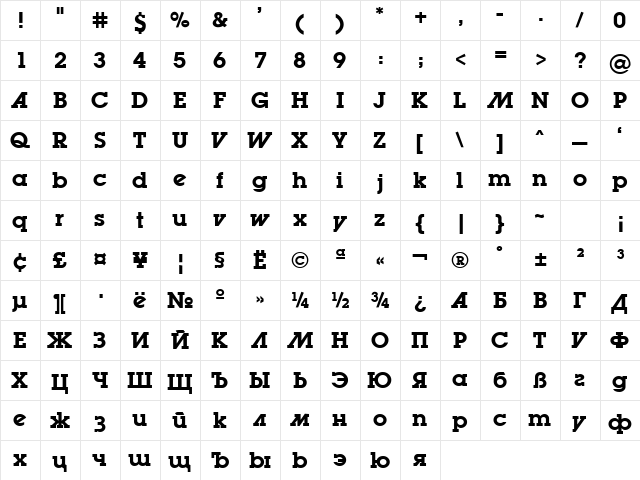
LugaBookAd SemiBold
Design Context for LugaBookAd Typeface
LugaBookAd is a composed and adaptable typeface that performs quietly and consistently across a wide range of design contexts. Its bold stroke weight gives it real presence on the page.